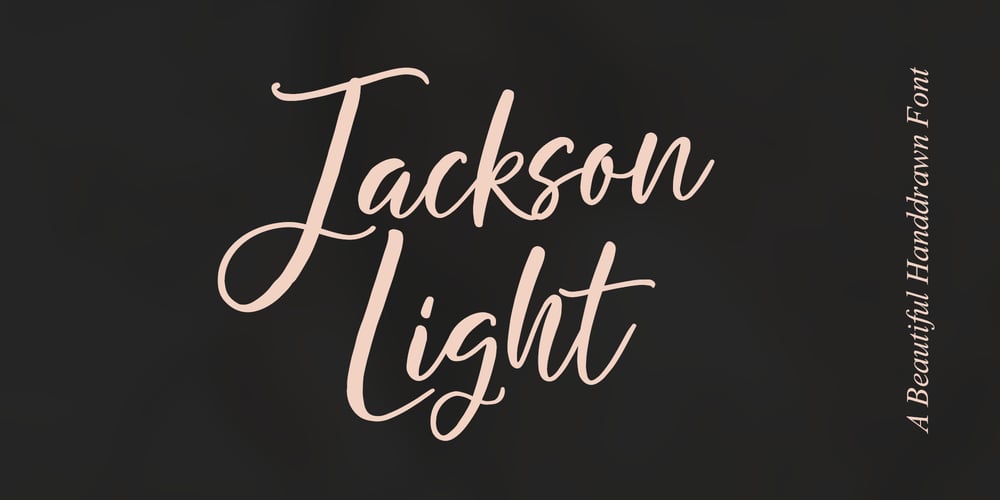
Jackson Light Font Family was designed by Dmitrii Chirkov and published by Supfonts. Jackson Light contains 1 styles and family package options. Jackson Light is a cute handwritten font perfect for headings, flyer, greeting cards, product packaging, book cover, printed quotes, logotype, apparel design, album covers, etc., or just adding a handwritten touch to any project!Font is an open type with clean shapes and precise kerning. It includes ligatures encoded by the PUALanguage support: All European languagesDon’t forget to subscribe so you don’t miss out on the new awesome fonts